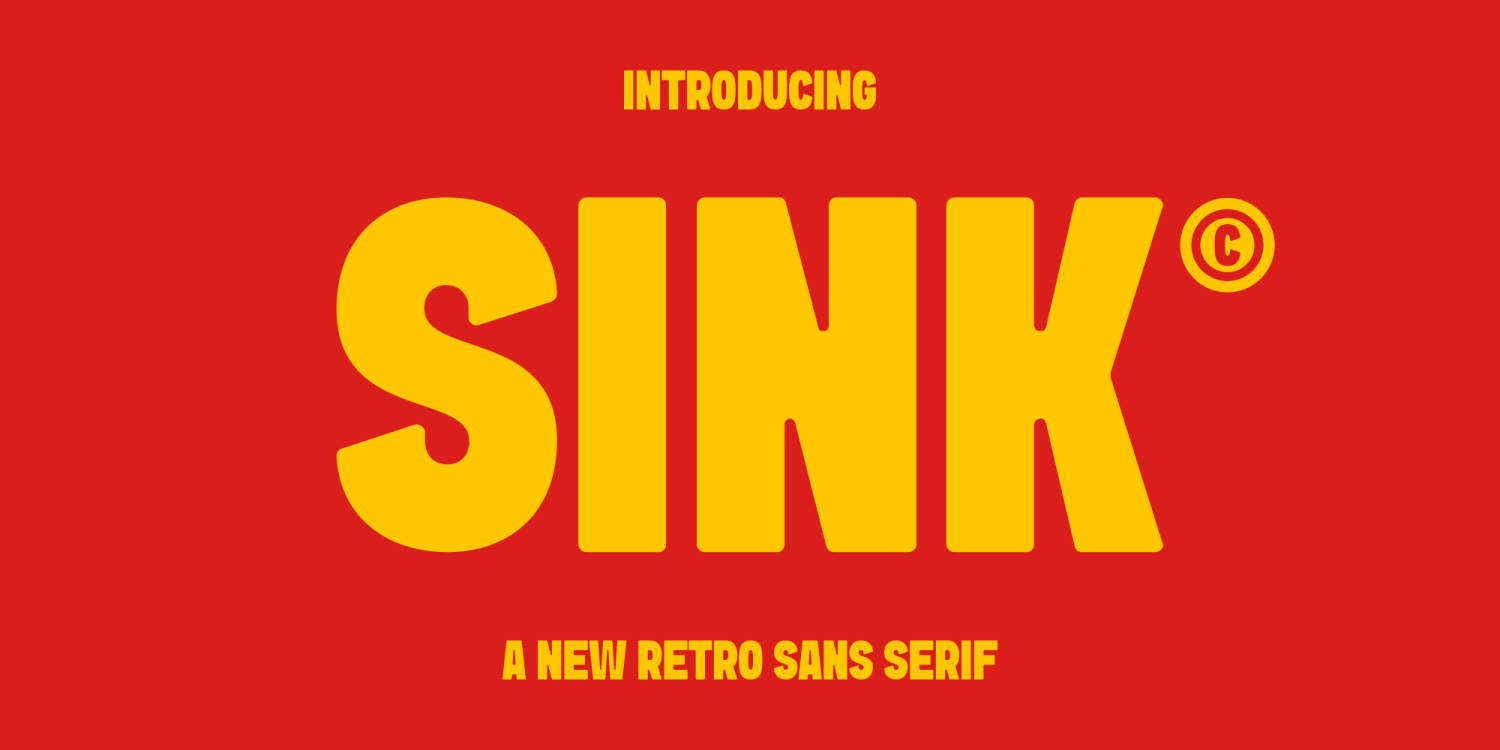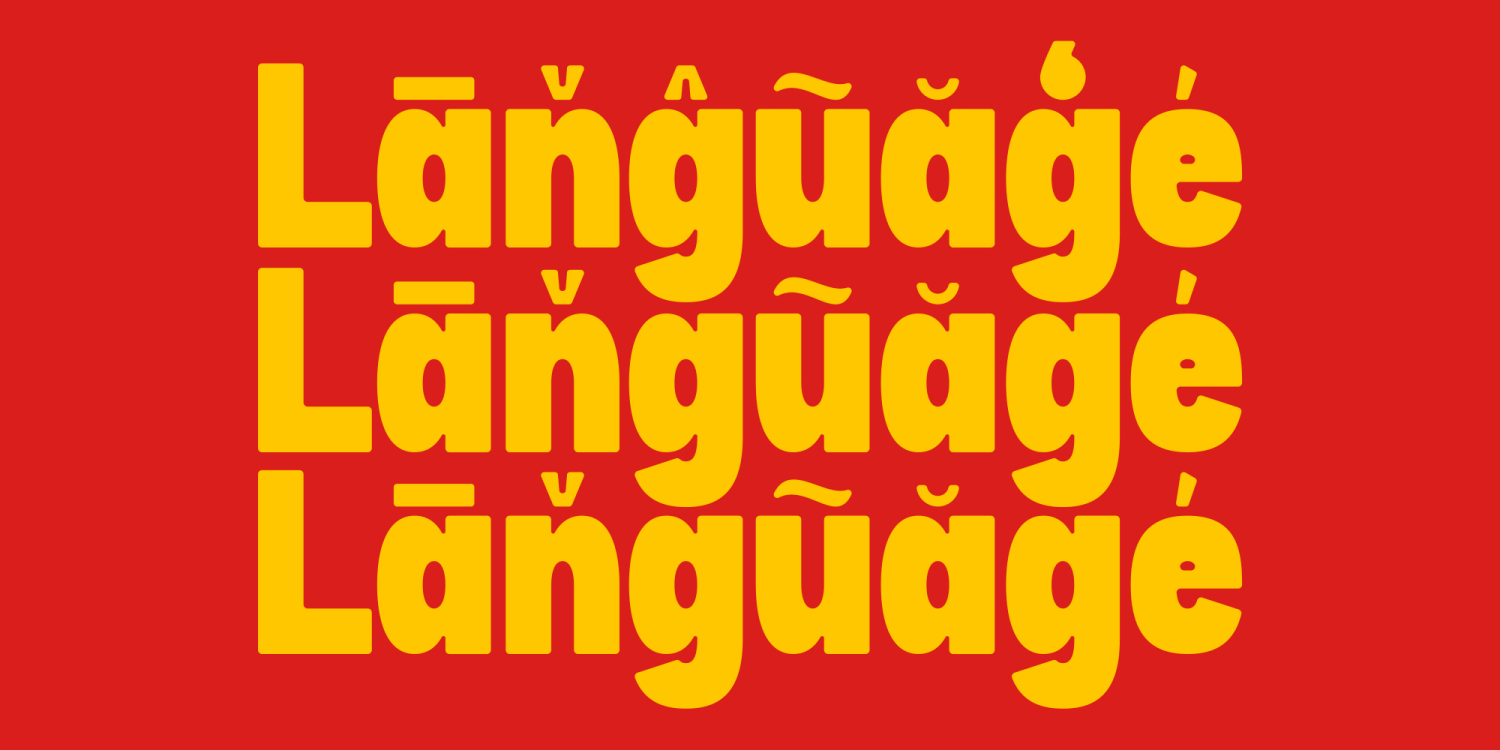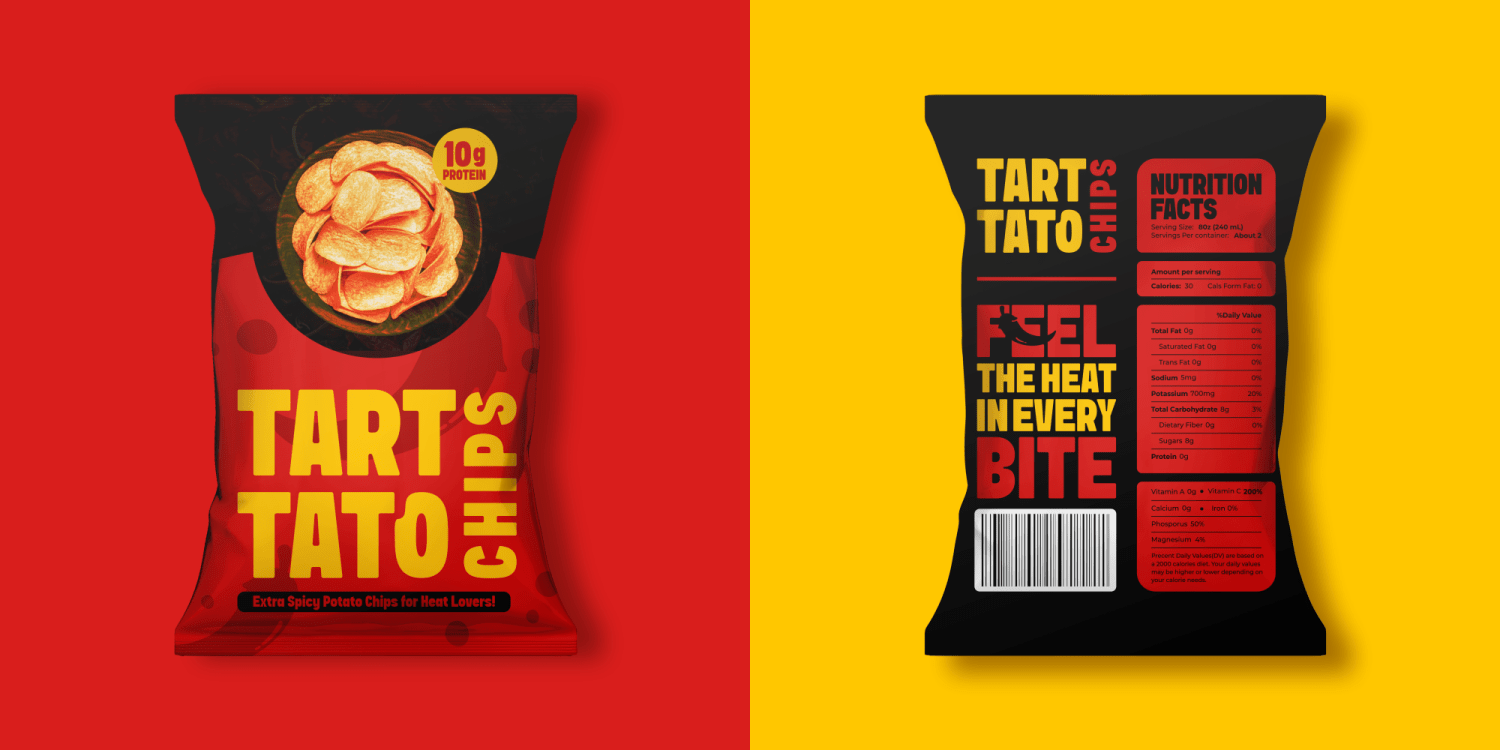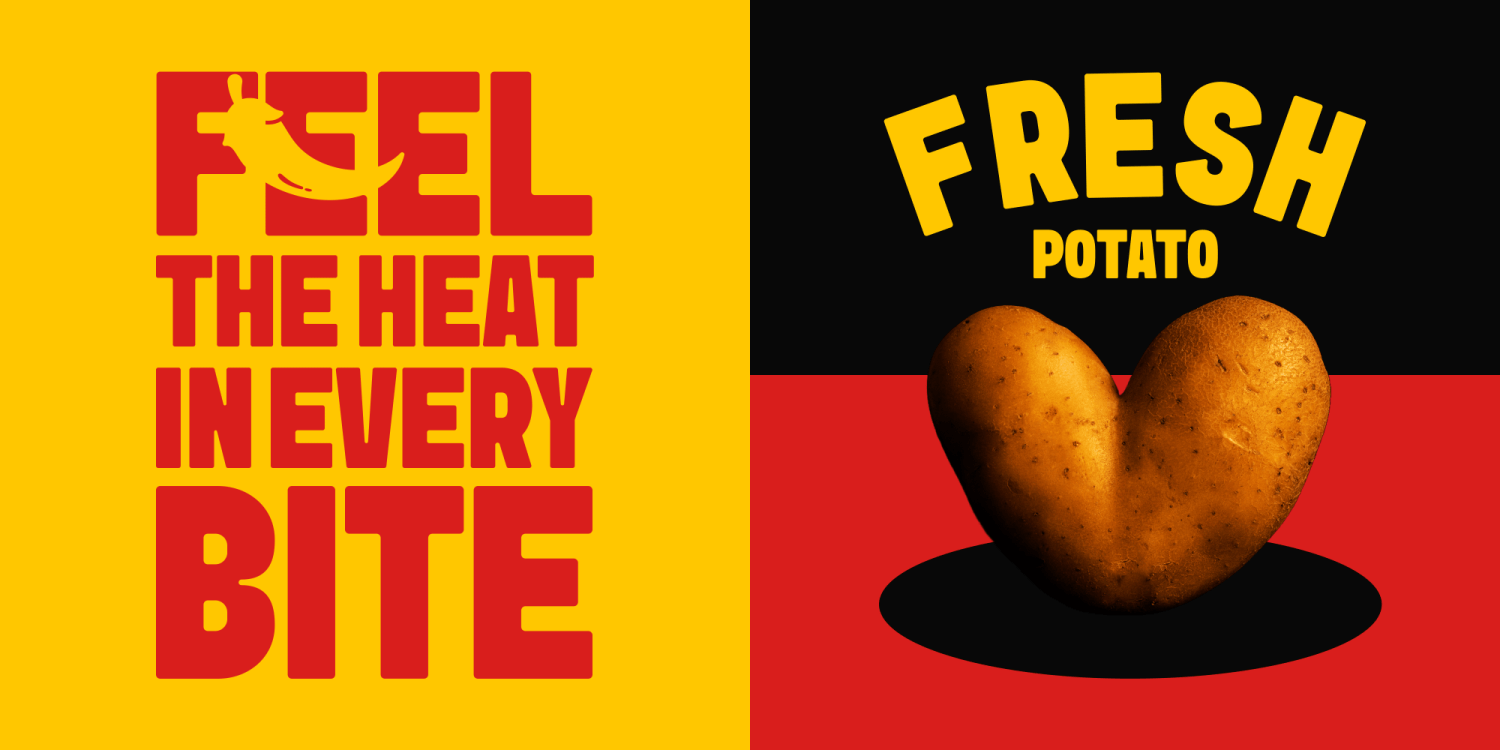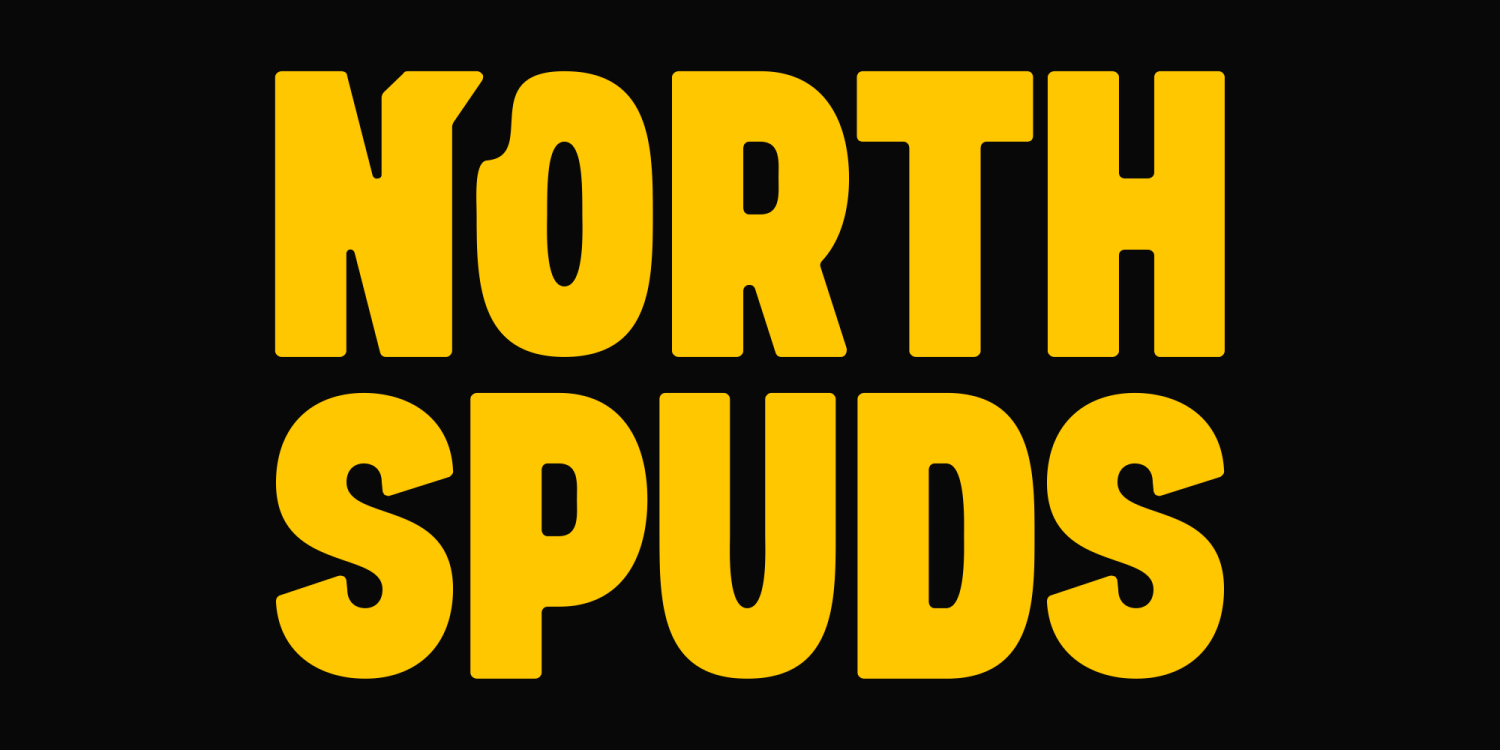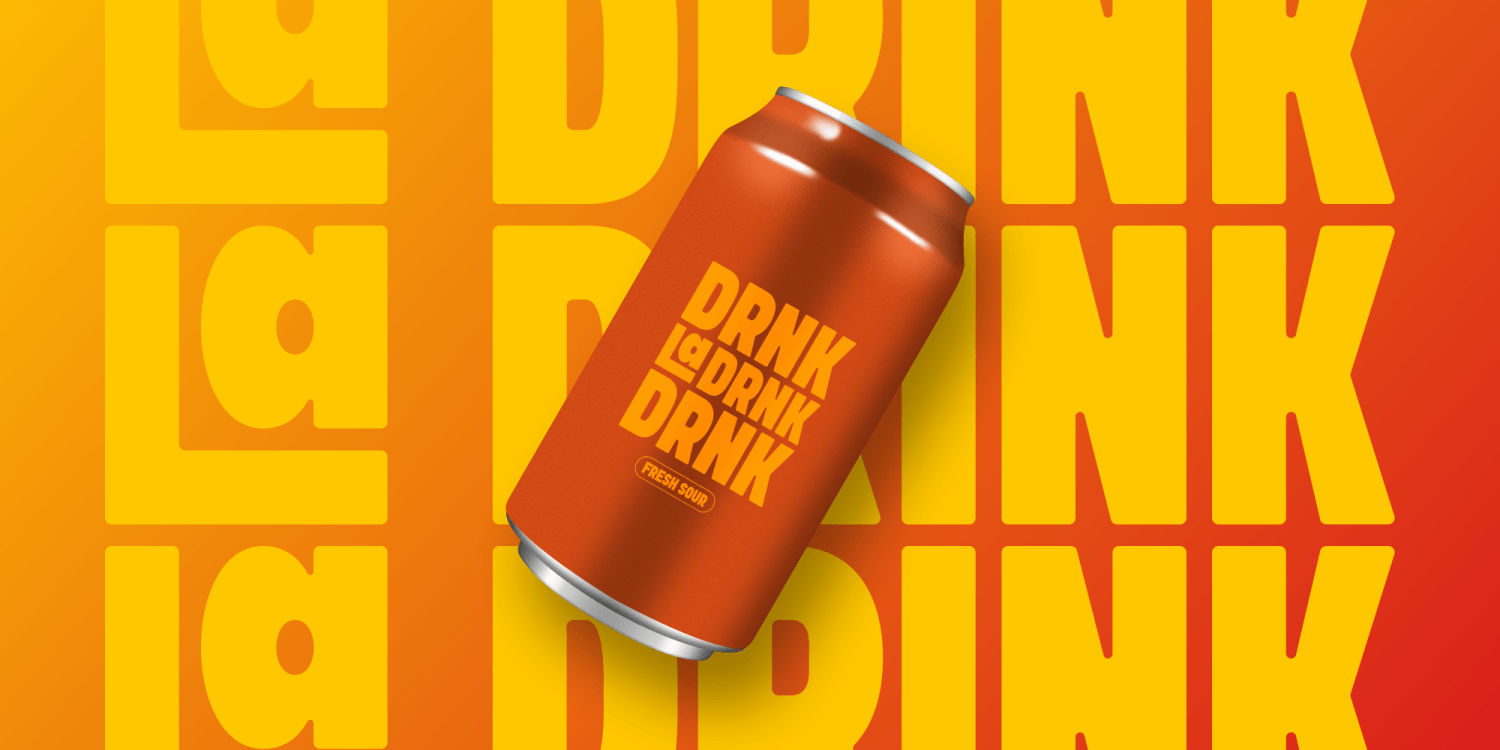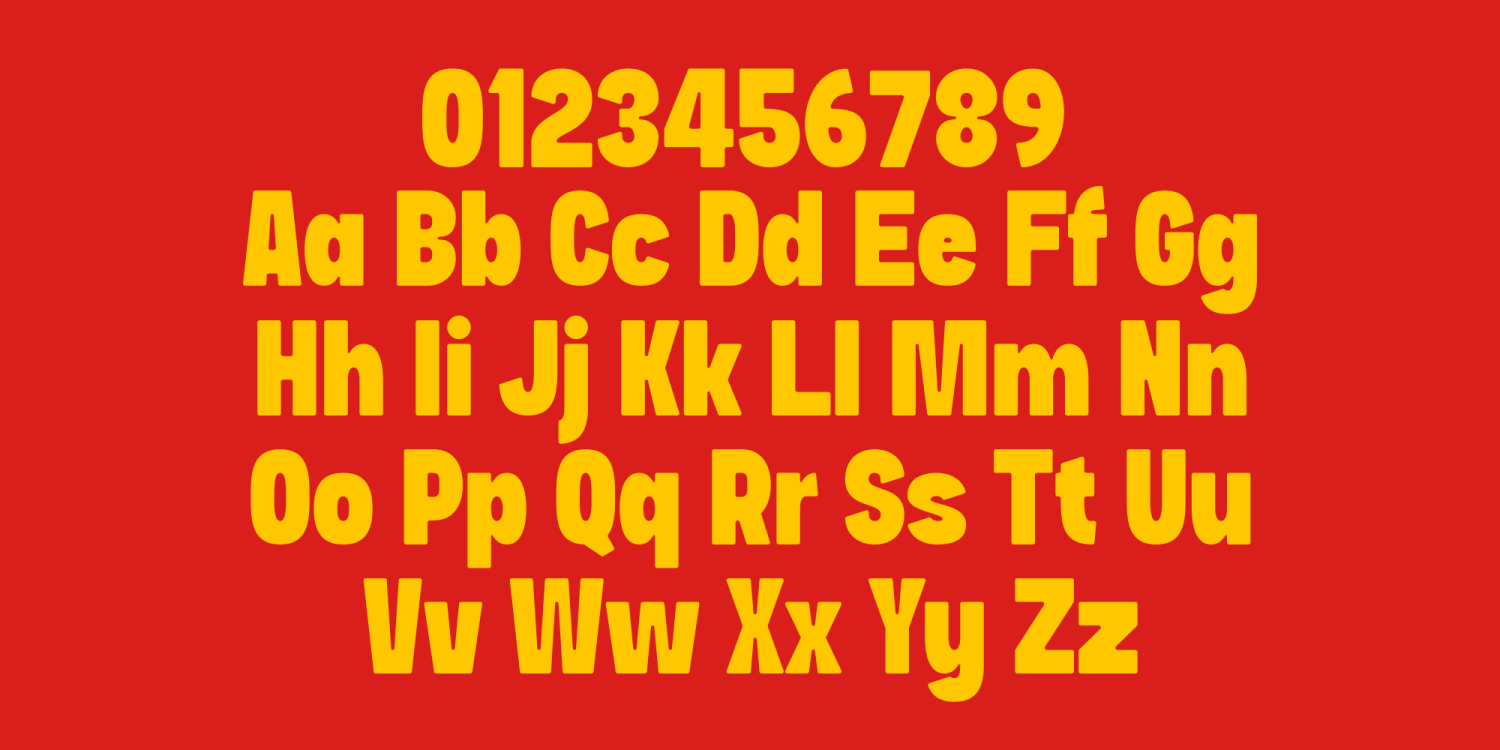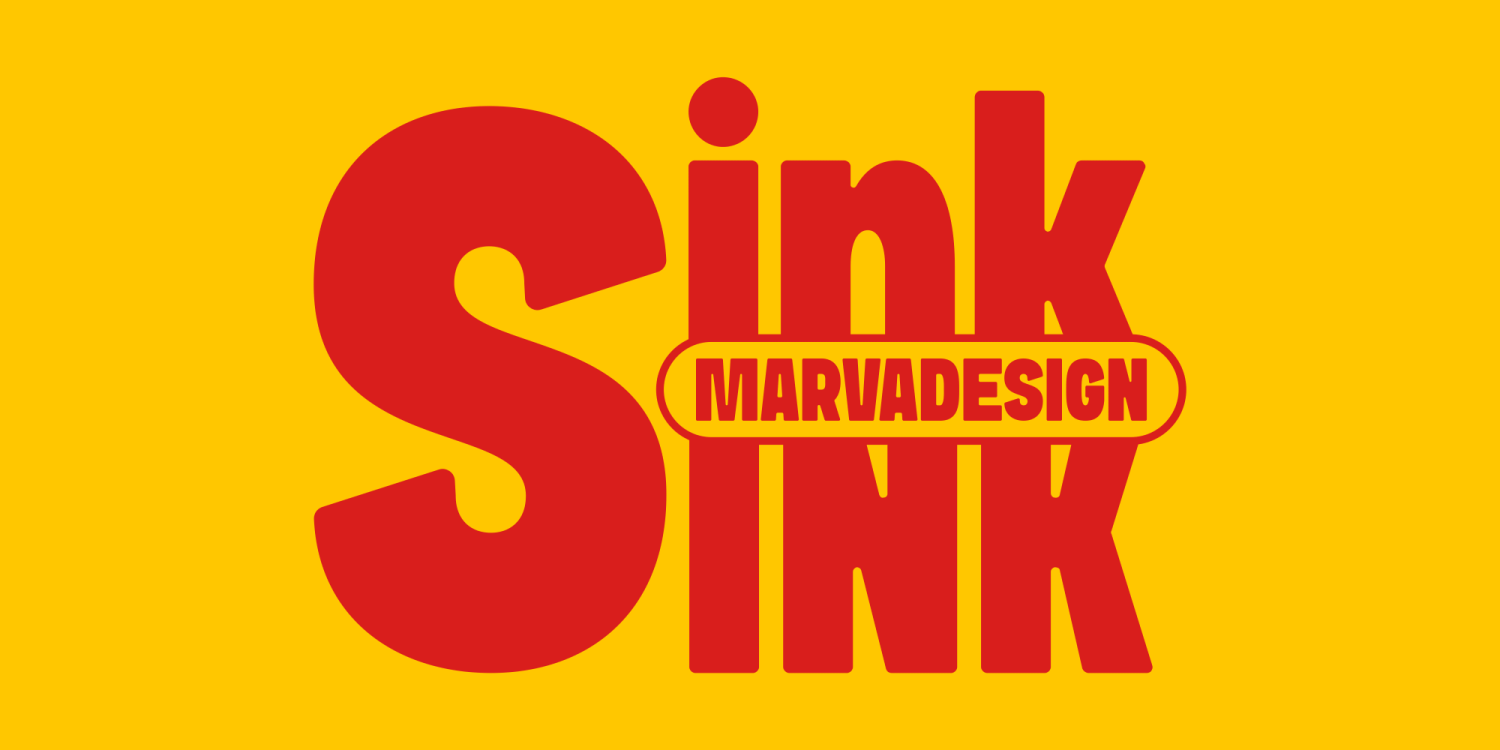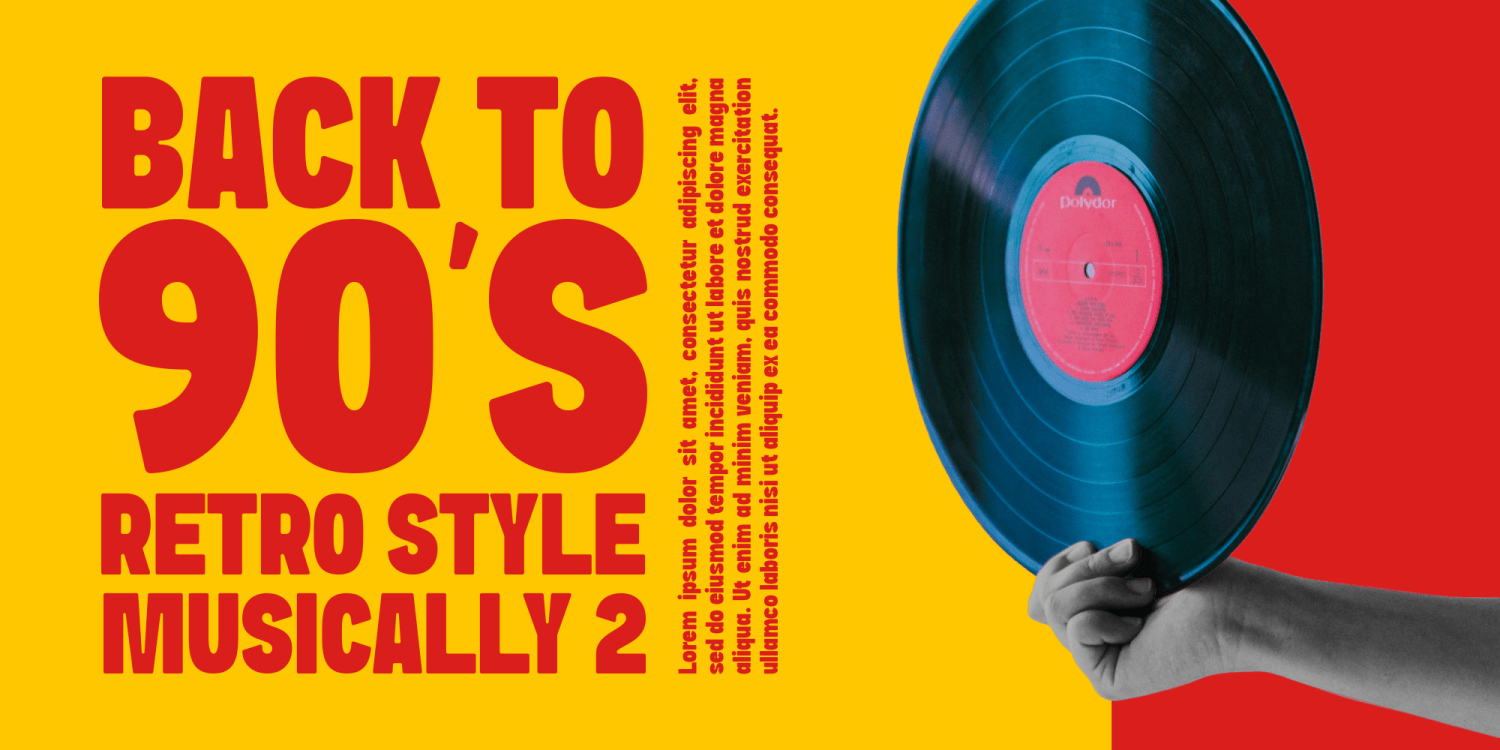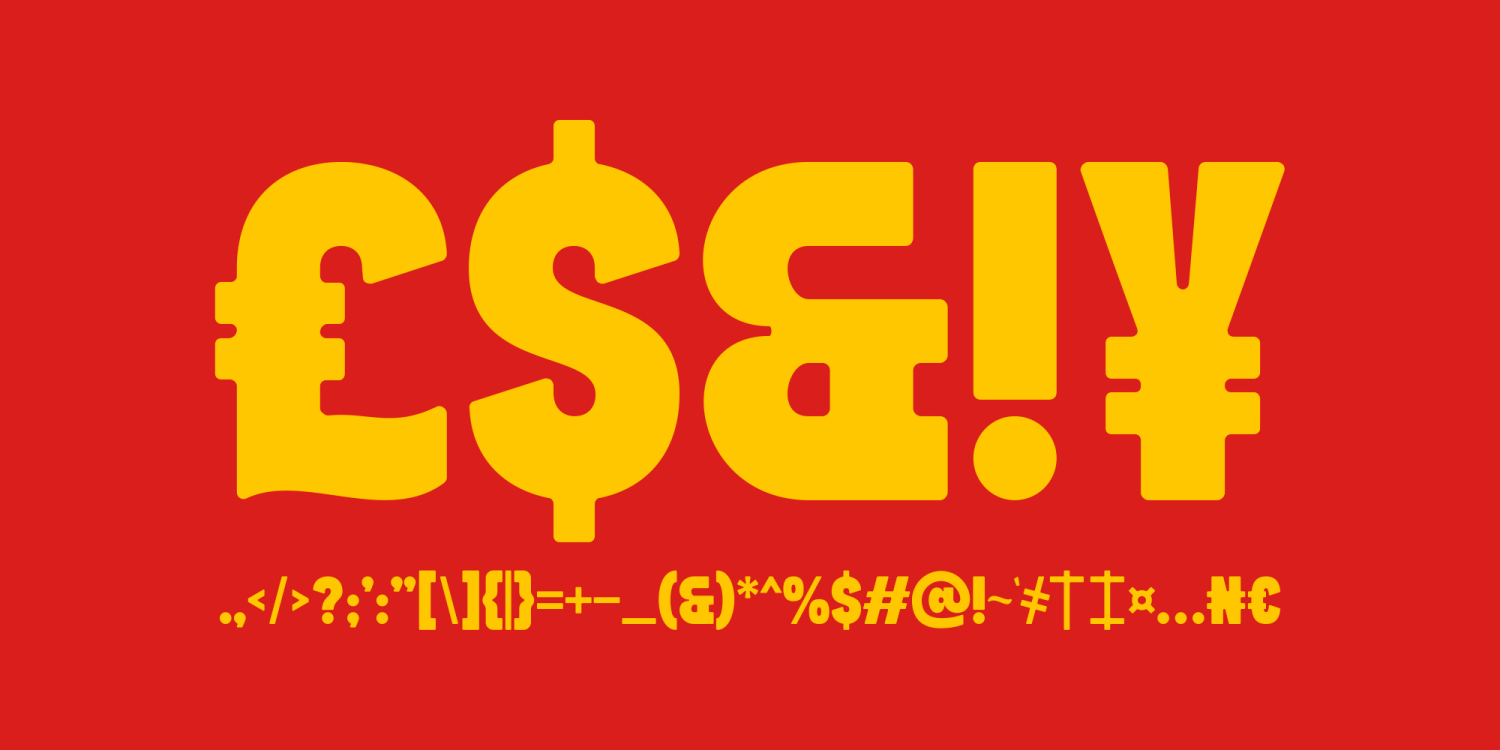
Sink
Font Family by Marvadesign
Introducing Sink is a retro sans serif font with a bold and striking appearance. Its substantial weight makes it an excellent choice for titles and packaging, ensuring your text stands out with confidence. The font features slightly rounded edges, adding a subtle softness to its otherwise strong and assertive design. Perfect for making a statement, Sink combines vintage charm with modern readability.